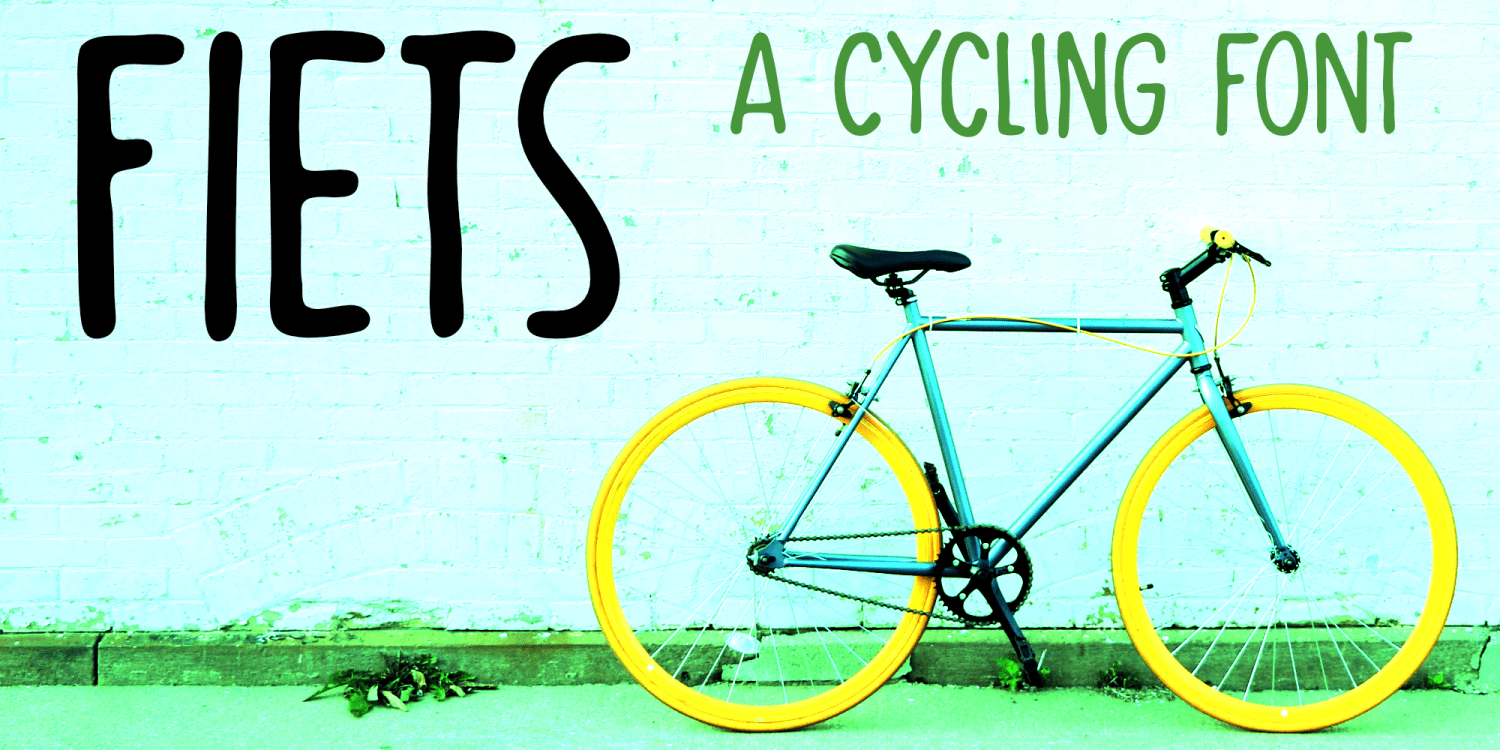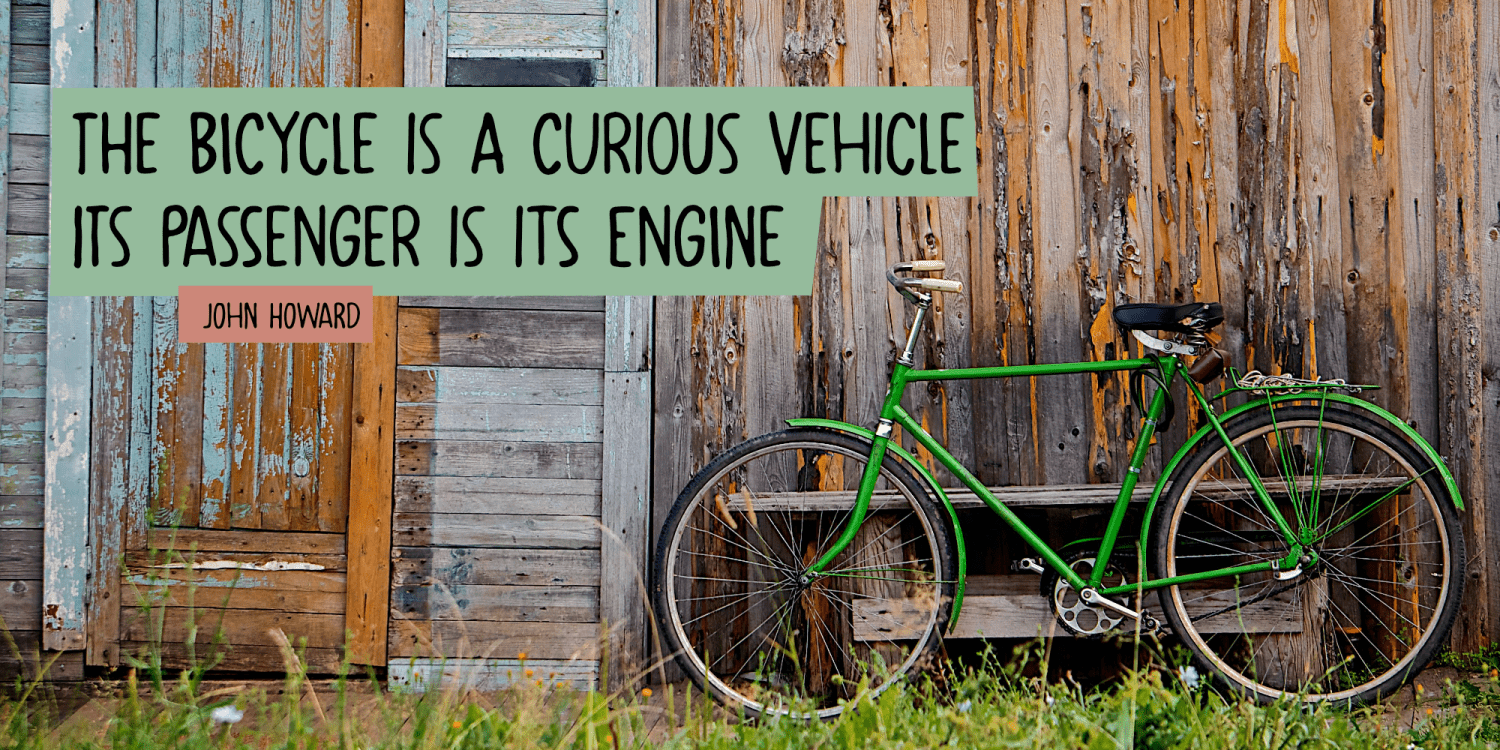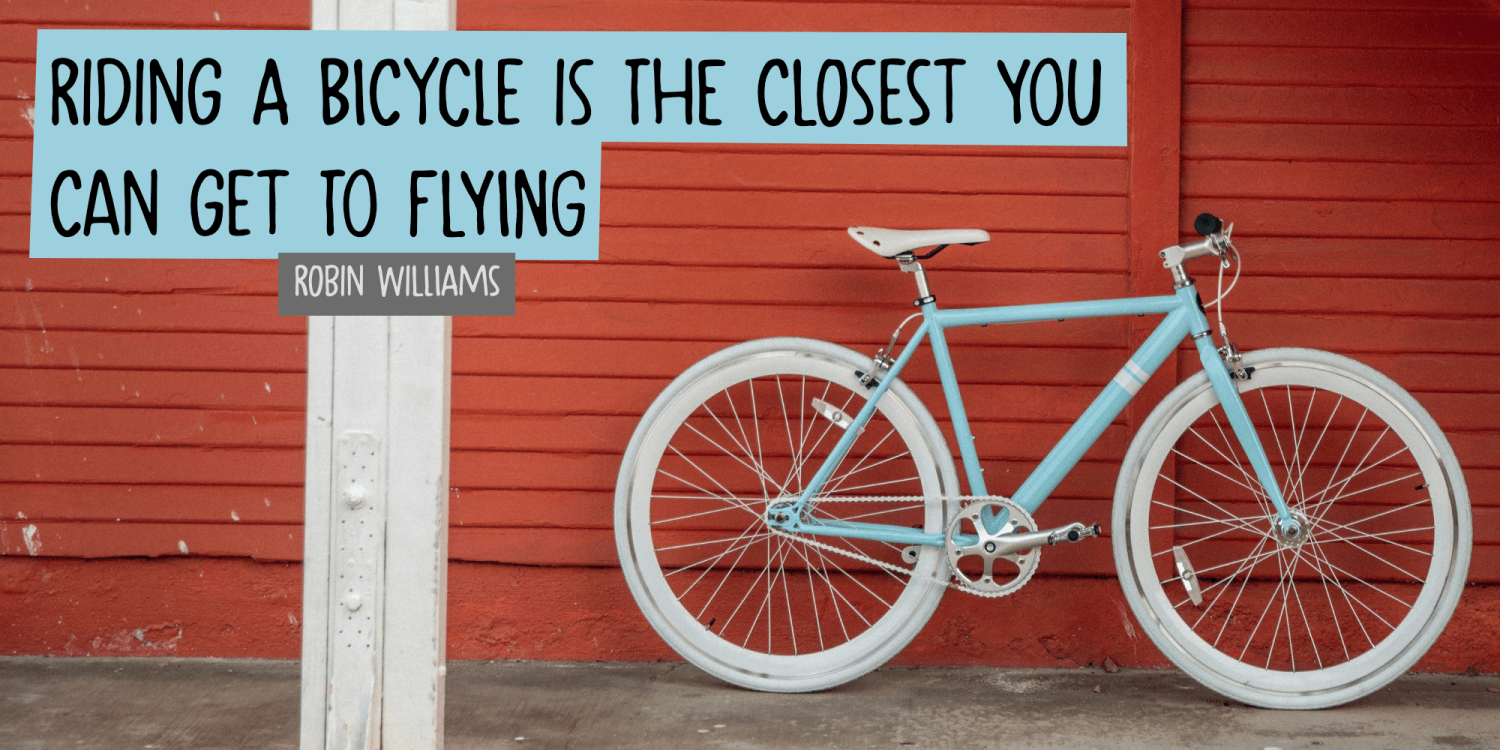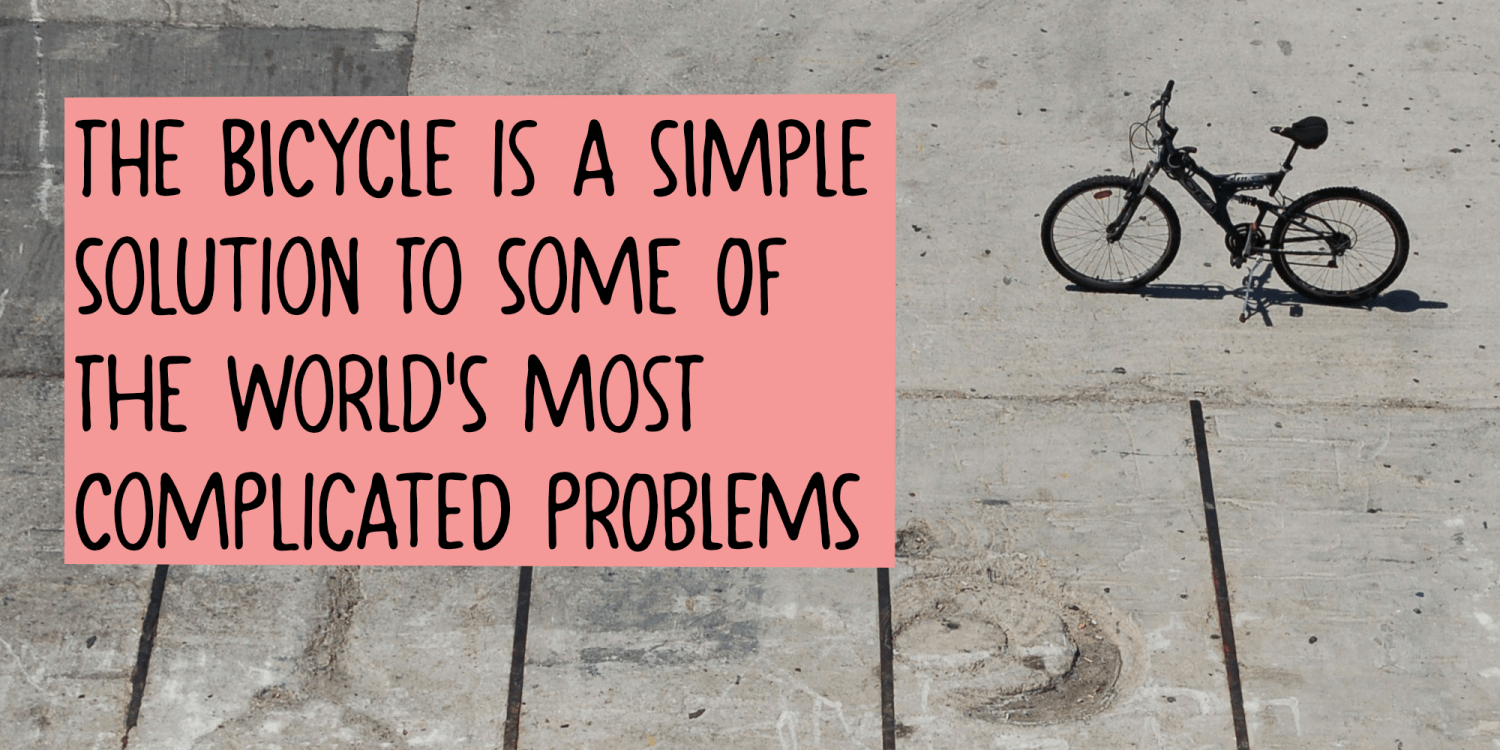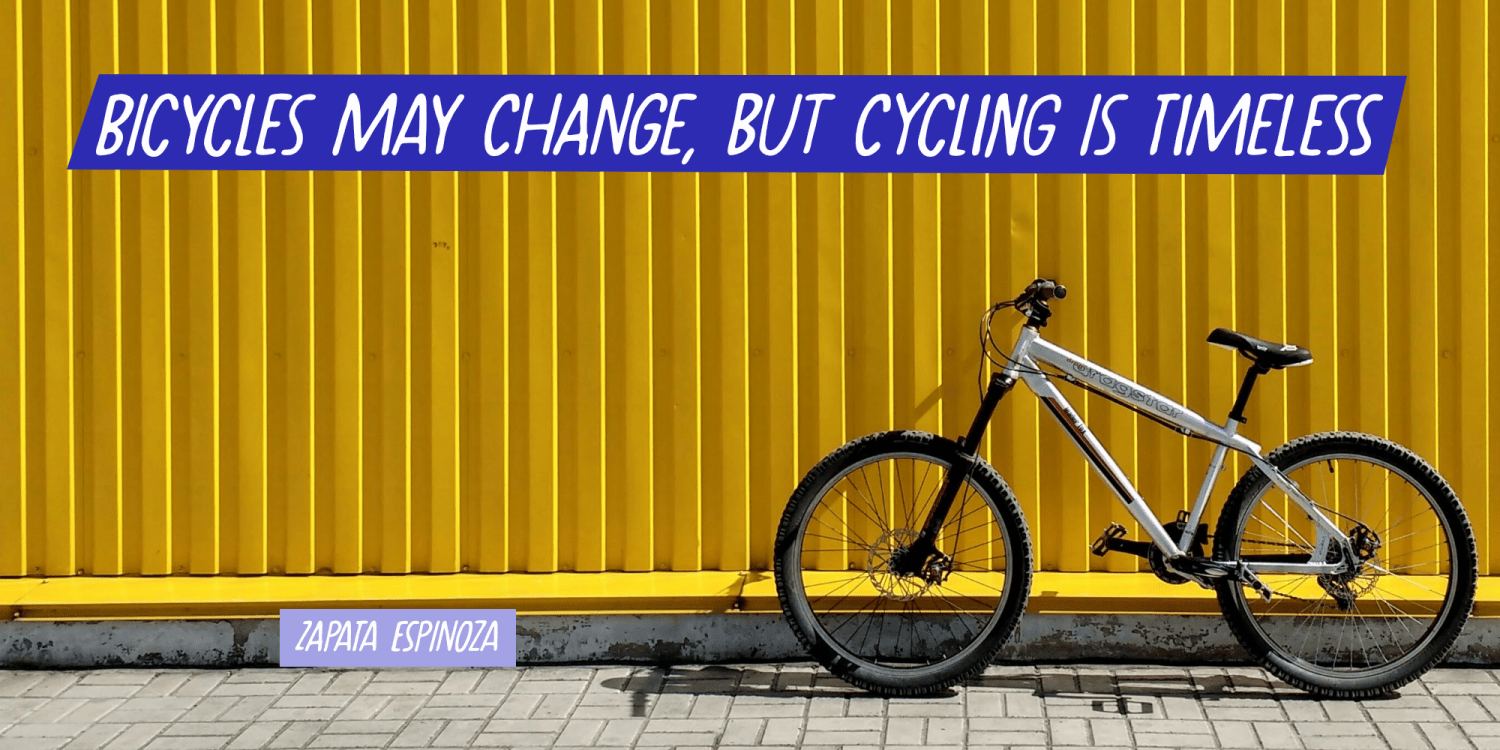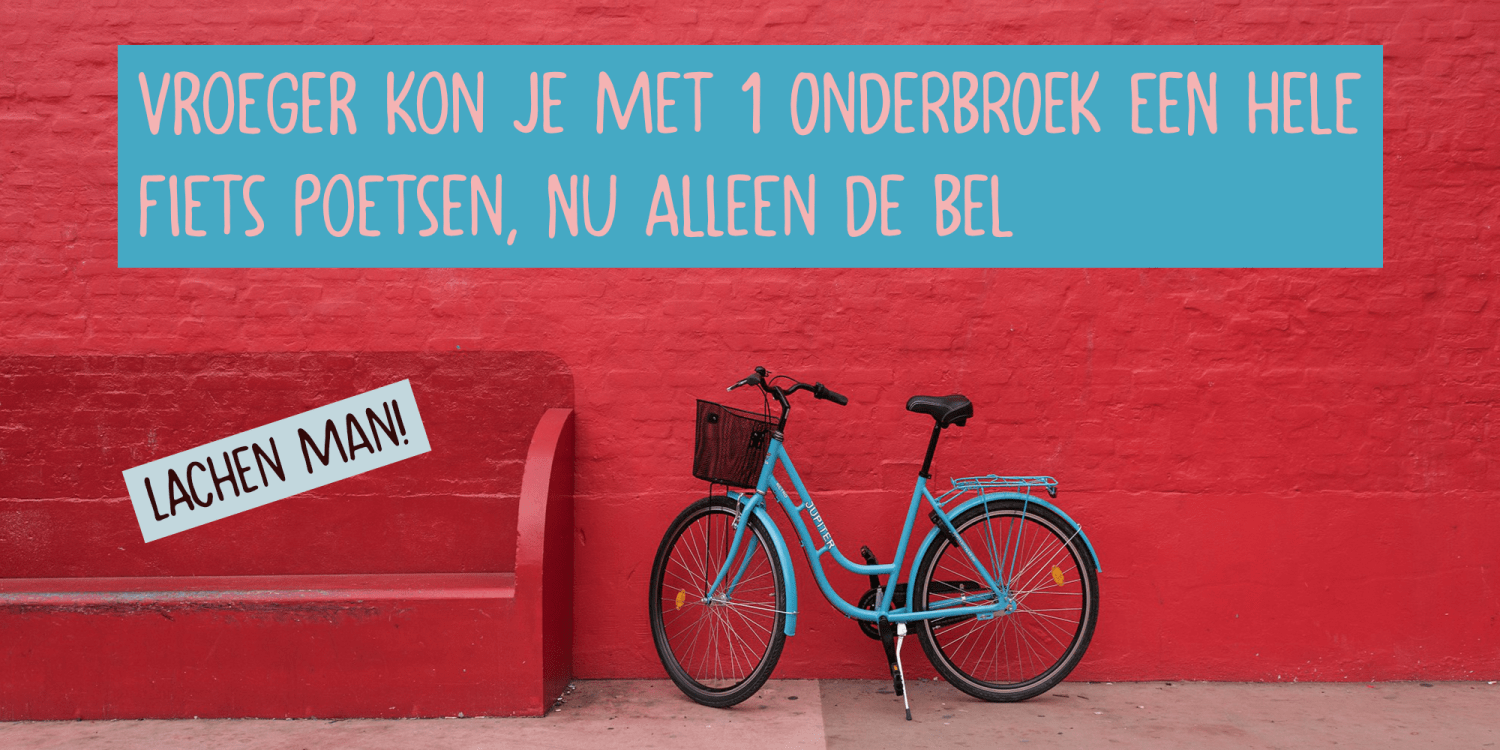
Fiets
Fiets is Dutch for bicycle. The origin of this word is unknown, but it has been part of the Dutch language since 1870. The Dutch love their bicycles and we ride them just about anywhere! My family and I are going on a bike-trip in the UK this summer, so I just had to name this font Fiets!
Fiets is a handmade font - I used a Japanese brush-pen and a ‘gaussian blur’ overhaul to create the glyphs.
Fiets comes with a set of auto-cycling alternates and extensive language support.